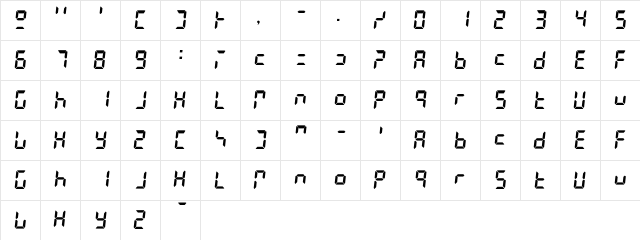
LiquidCrystal Regular
Design Context for LiquidCrystal Typeface
LiquidCrystal takes a measured approach to typography — its balanced proportions and neutral character make it a reliable workhorse for both digital and print work.
Pro Tip: Pair LiquidCrystal with a font of contrasting weight or personality to build a more expressive typographic hierarchy.